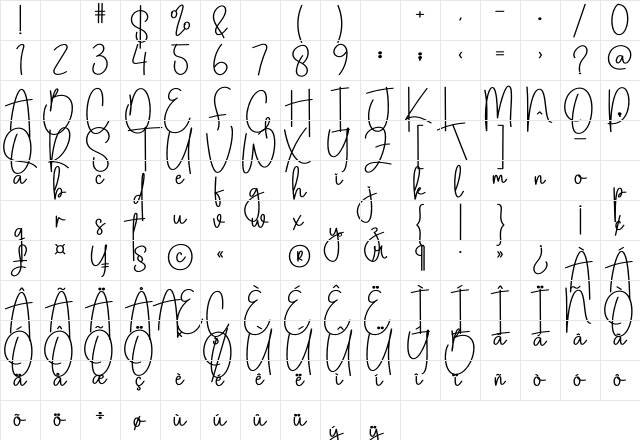
Wonderful Picture Regular Free Font
Wonderful Picture Regular
Design Context for Wonderful Picture
Wonderful Picture is a composed and adaptable typeface that performs quietly and consistently across a wide range of design contexts.